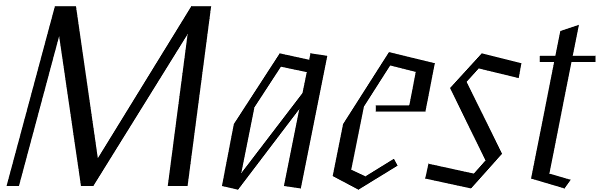
Maest
Constructed only with straight lines, Maest is an unusual script typeface. The straight lines give the letters a striking visual effect, specially in small sizes. Maest also features four styles of figures, plus swash capitals, a few ending forms...